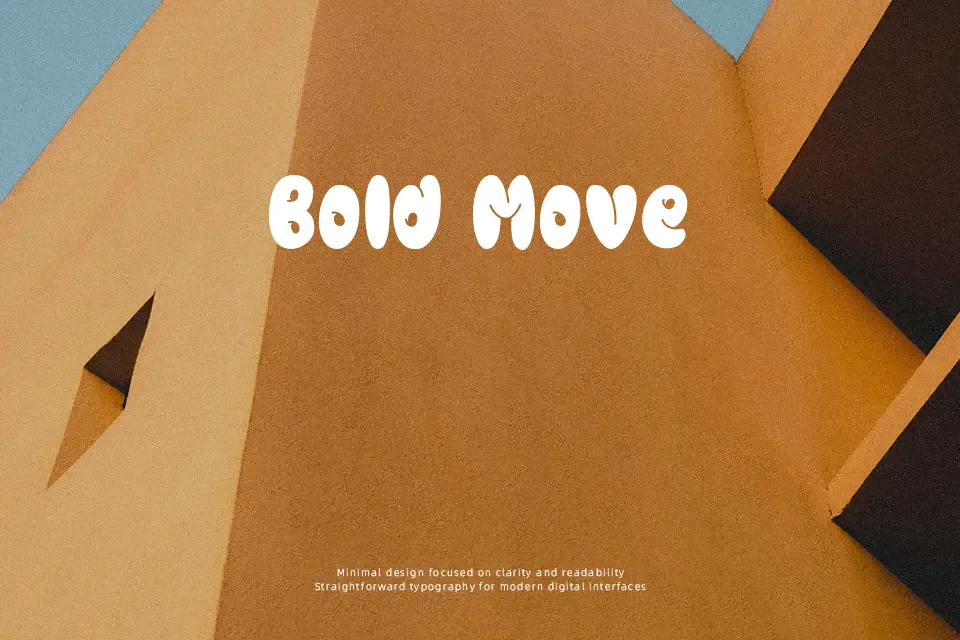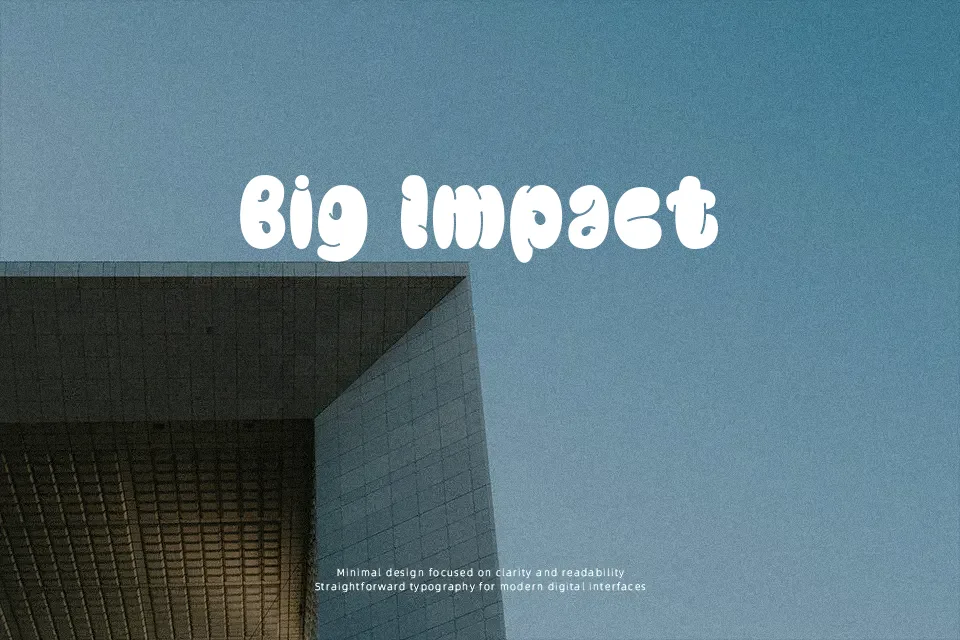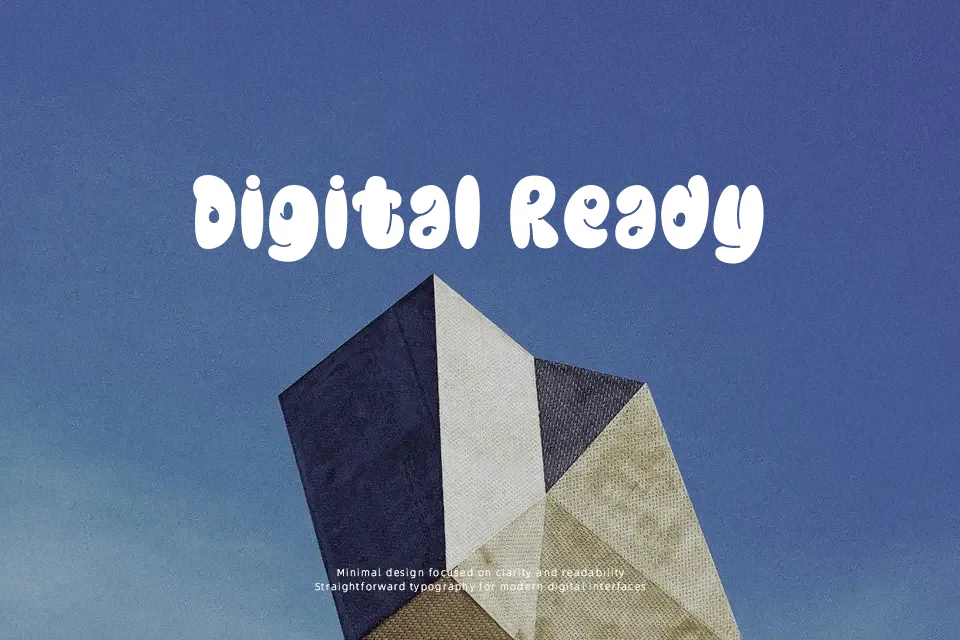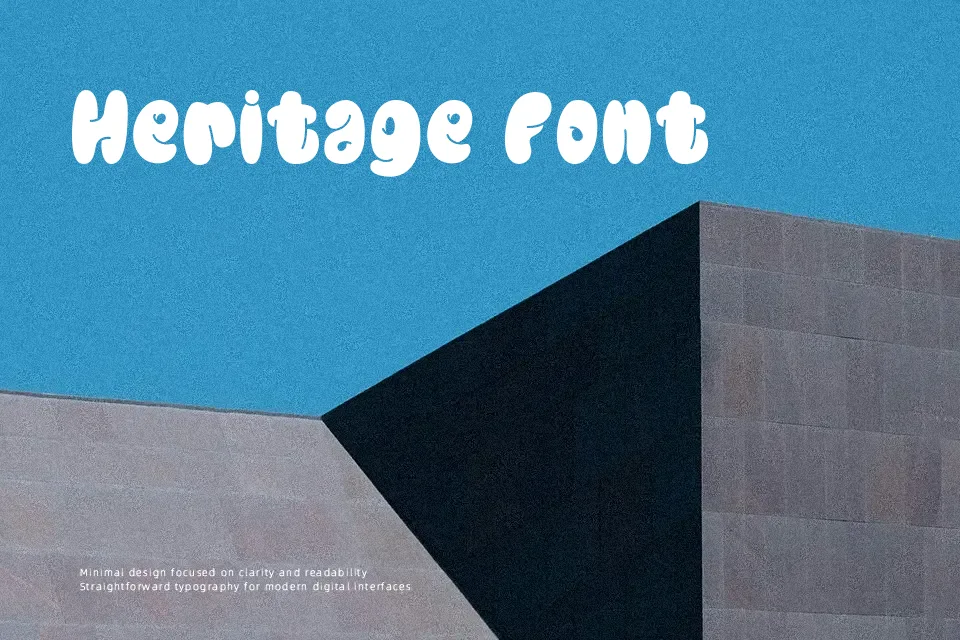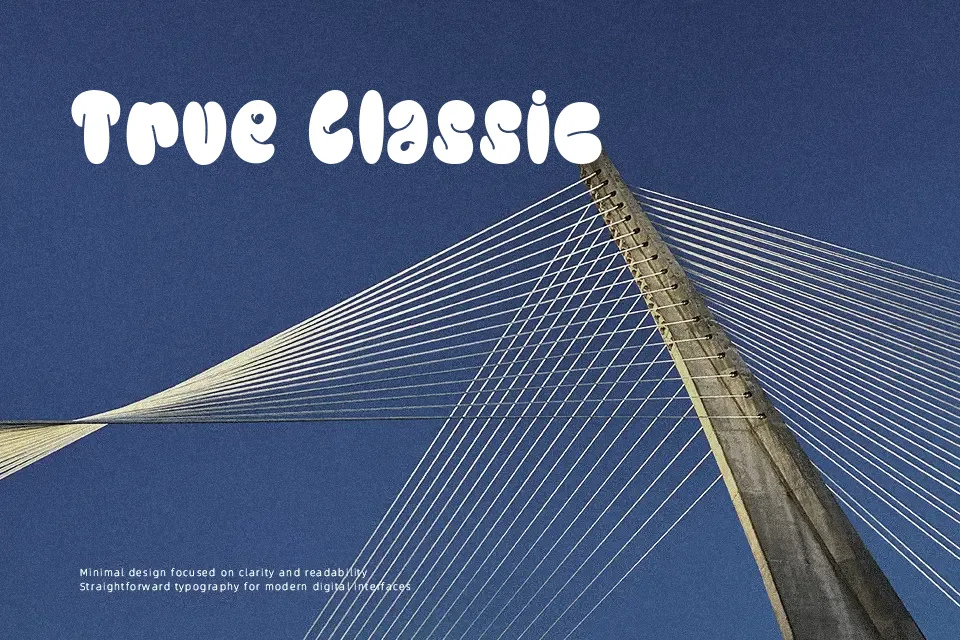
Bubble Cool Font
Bubble Cool Font is a vibrant display typeface characterized by heavy, inflated strokes and entirely rounded terminals. Lacking sharp corners, the letterforms deliver a soft, organic, and approachable aesthetic. Its tight tracking and thick weight create a cohesive presence, giving off a distinctly casual, retro, and groovy vibe.
This typeface works beautifully when you need to make a bold, lighthearted statement. It performs exceptionally well for prominent headlines on children’s toy packaging, retro-themed event posters, and engaging social media graphics. However, due to its extreme thickness and highly decorative nature, the font struggles with legibility at smaller scales. It should be strictly avoided for body copy, lengthy editorial layouts, or corporate branding that demands a serious, formal tone.
Eye-catching event posters
Children’s apparel and toy packaging
Retro-inspired social media campaigns
Standalone playful logo designs
Small-scale body text
Corporate or professional documents
Dense editorial layouts